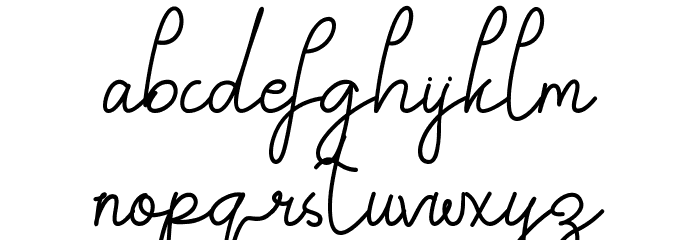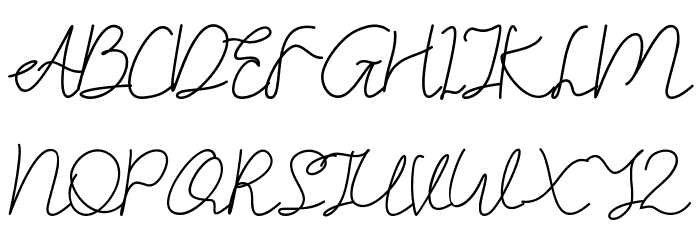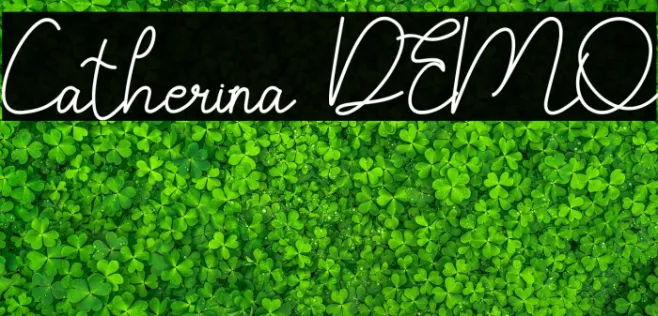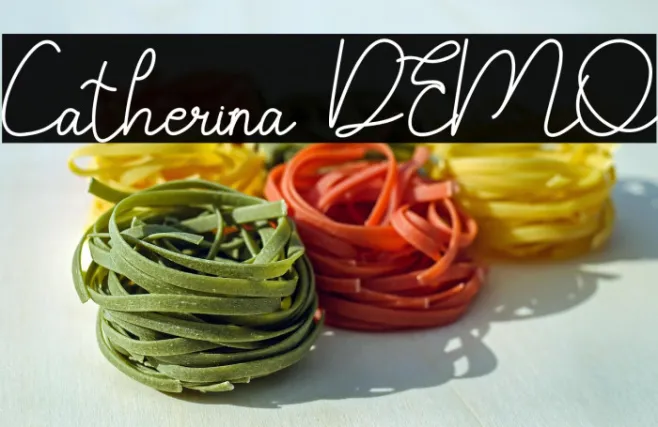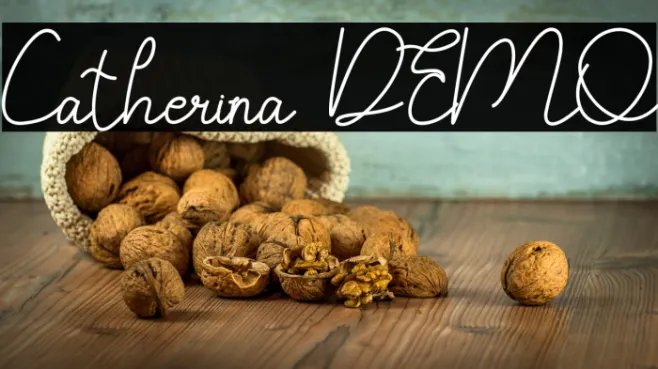
Catherina DEMO Font
This font features an elegant and flowing script style, characterized by its smooth, continuous strokes and a handwritten appearance. The letters are connected, giving it a cursive look that is both sophisticated and approachable. The uppercase letters are slightly more elaborate, with graceful loops and curves, while the lowercase letters maintain a consistent flow. The overall design is delicate, with a light touch that adds to its charm. This font is ideal for projects that require a personal or artistic touch, such as invitations, greeting cards, or branding materials. Its unique style makes it stand out, offering a blend of classic elegance and modern flair.
An elegant, flowing script font with a handwritten, cursive style.
- Proposed Projects: Ideal for wedding invitations, greeting cards, personal branding, and artistic projects.
- Category: Script
- Weight: Light
- Overall Style: Elegant, Artistic
- Use Case: Invitations, Greeting cards, Personal branding